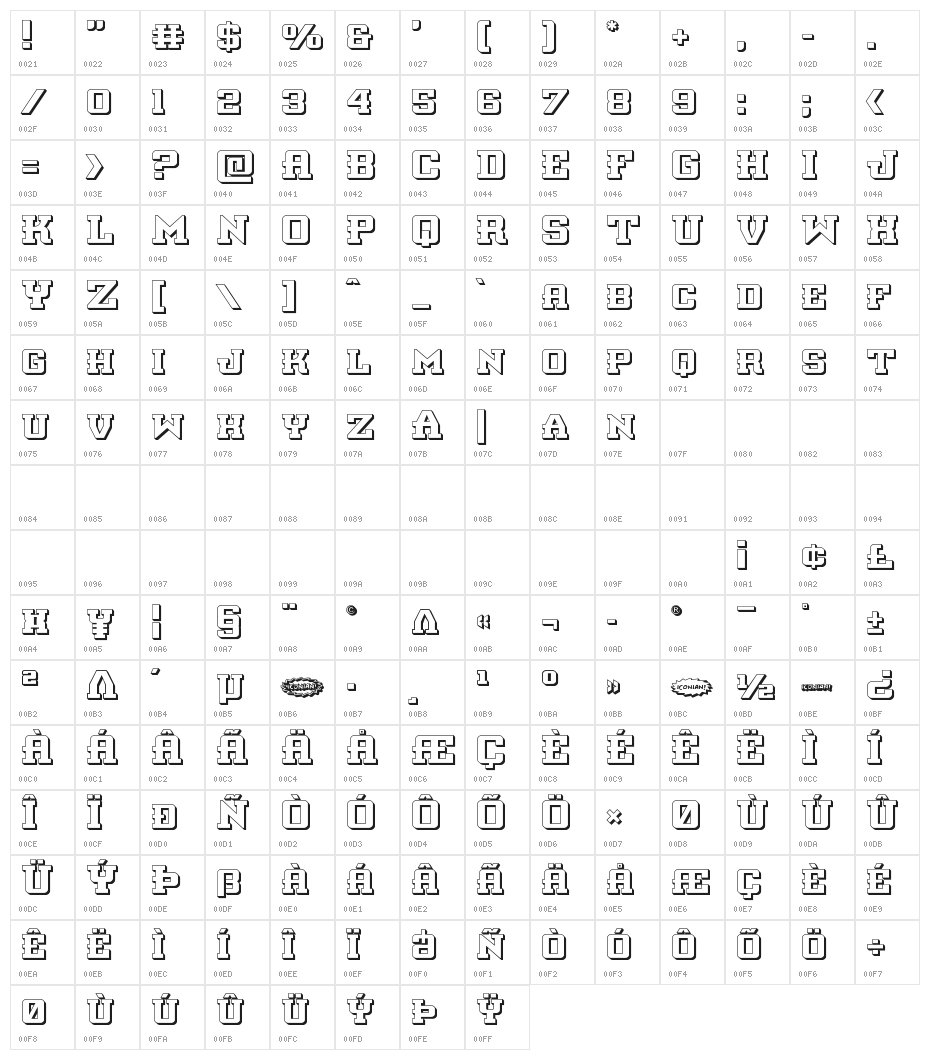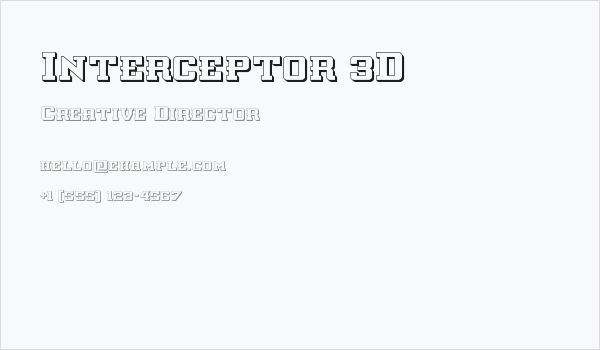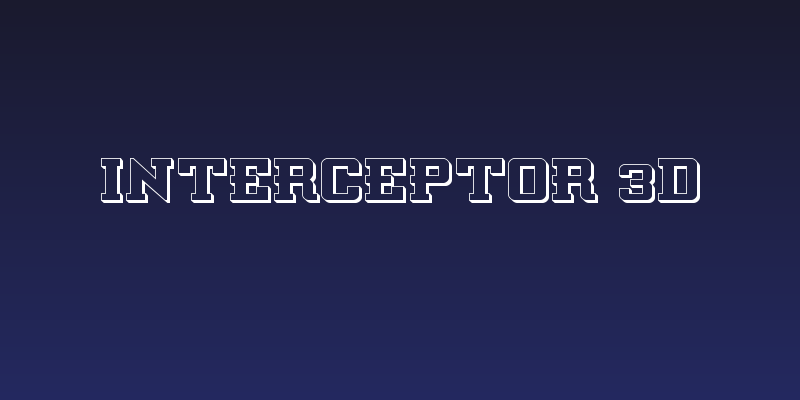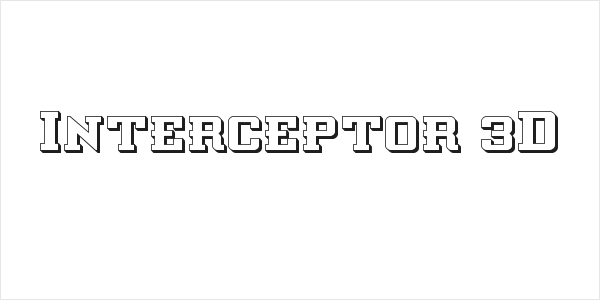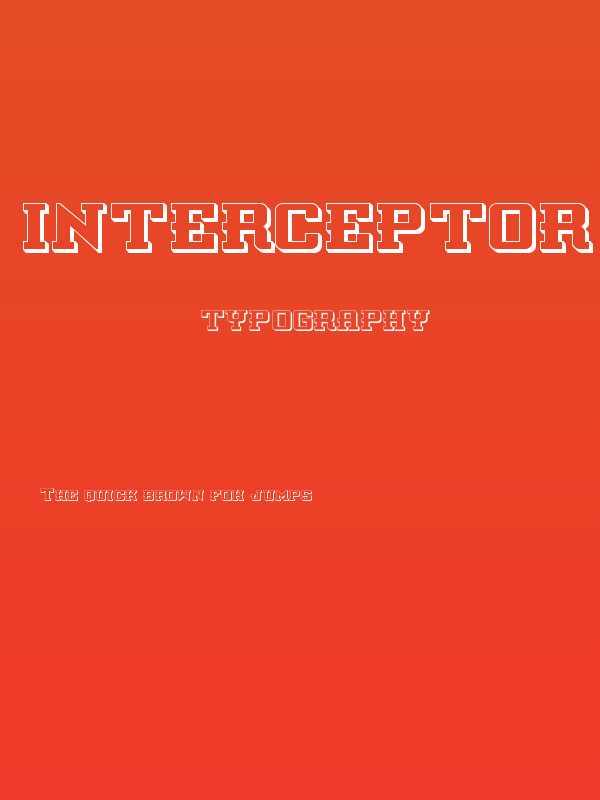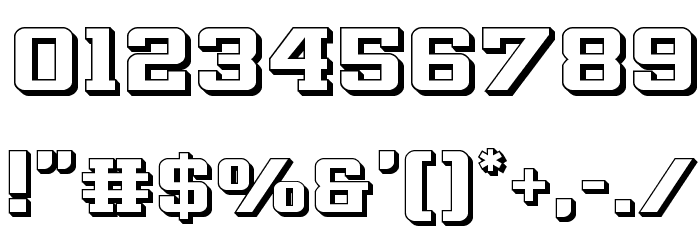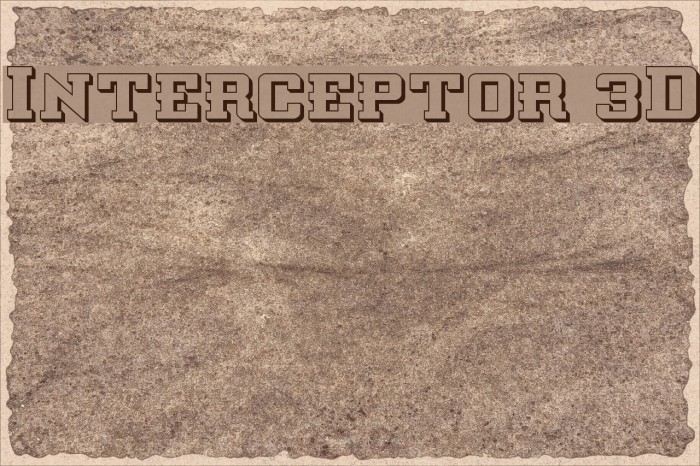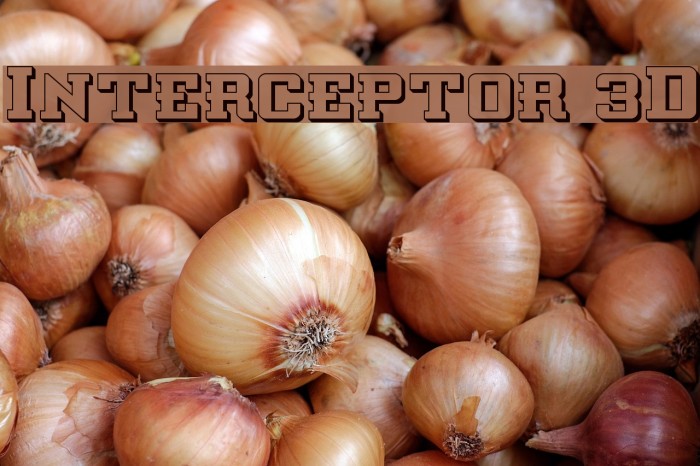
Interceptor 3D Font
Interceptor 3D Description
This font features a bold, three-dimensional design with a strong, impactful presence. Each character is outlined with a thick border, creating a shadow effect that gives the impression of depth and solidity. The letters are uppercase, with a geometric and blocky style that emphasizes straight lines and sharp angles. The numbers and special characters follow the same design principles, ensuring consistency across all glyphs. The font's boldness and 3D effect make it stand out, making it suitable for attention-grabbing headlines and titles.
| Proposed Projects | Ideal for posters, logos, video game titles, and any design requiring a bold, eye-catching typeface. |